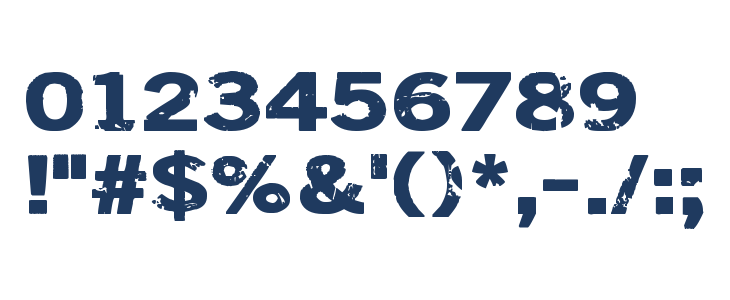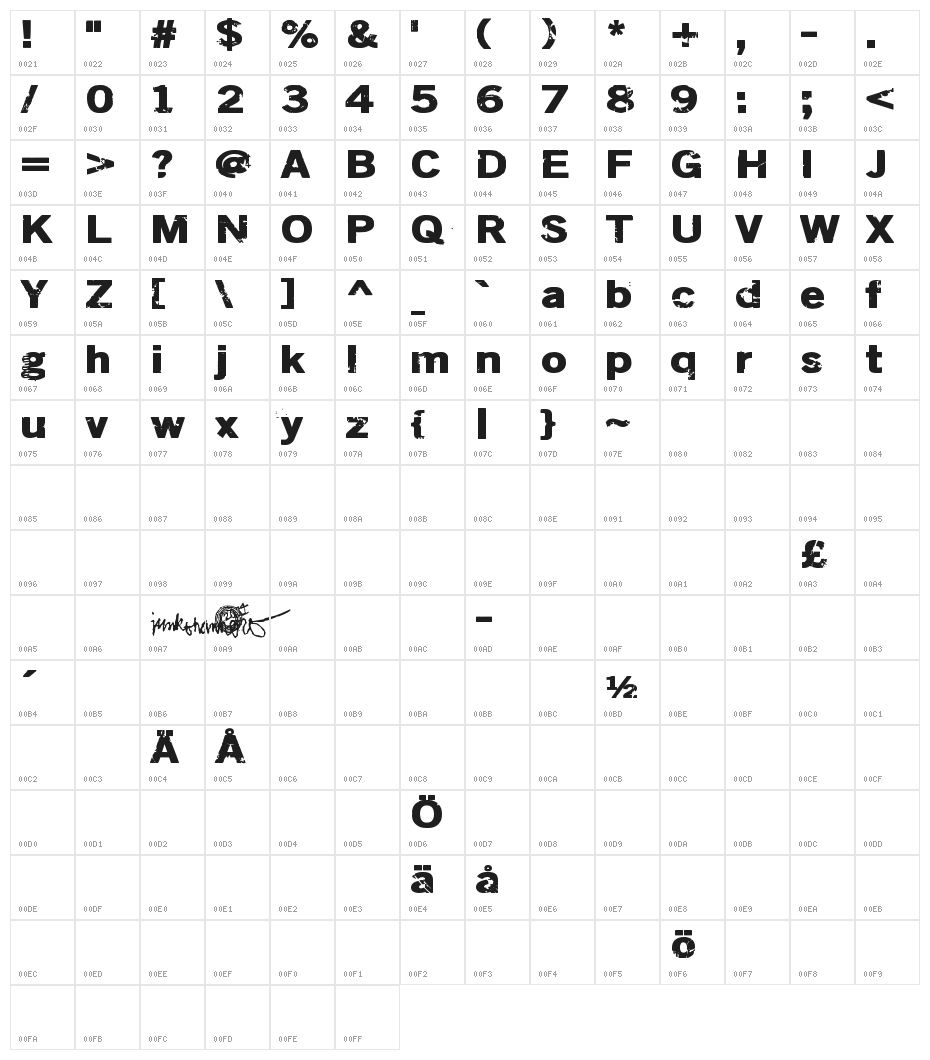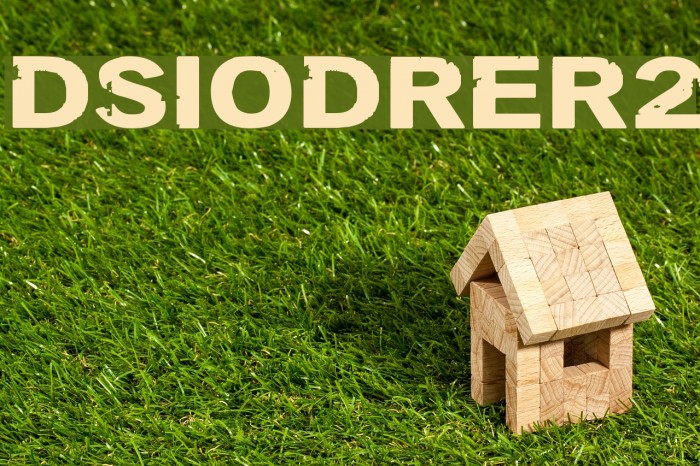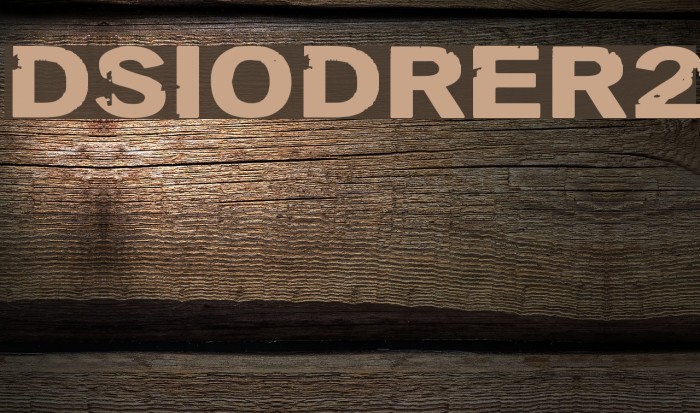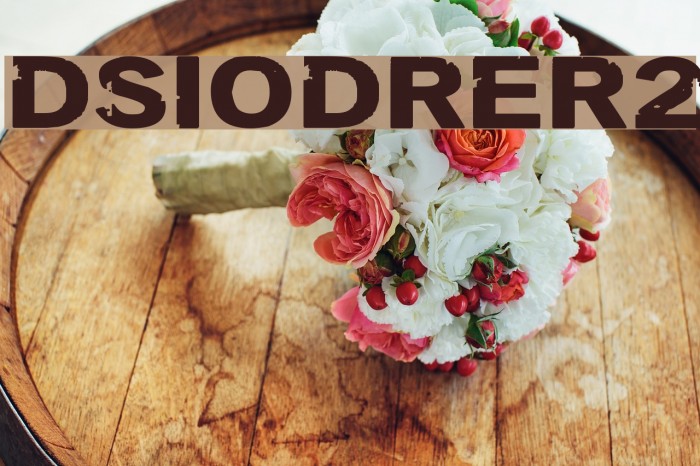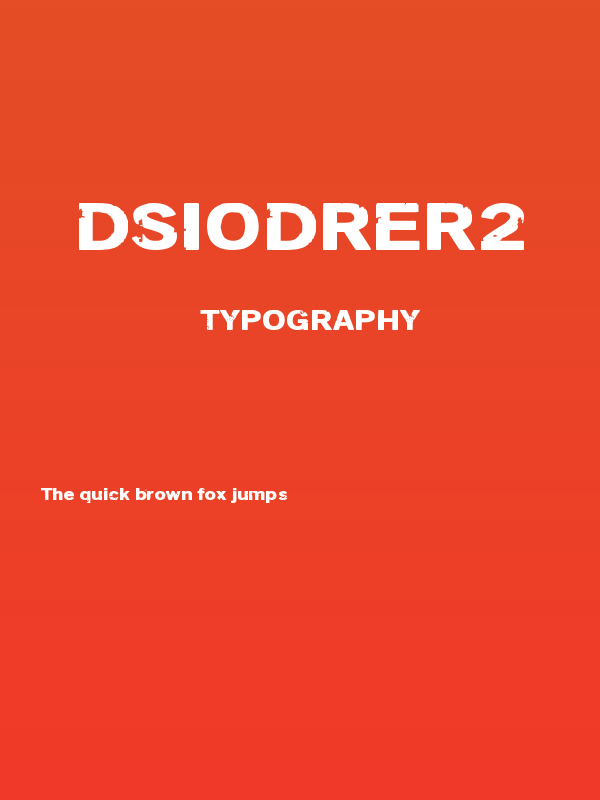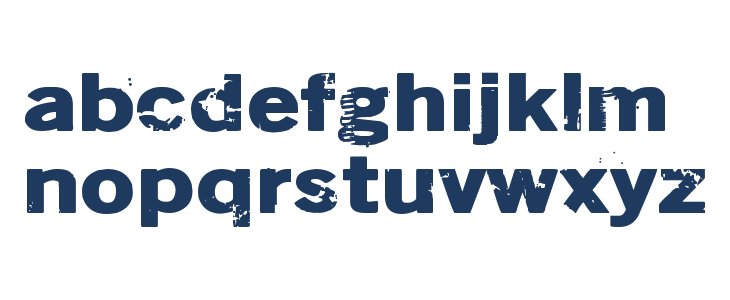
DSIODRER2 Font
DSIODRER2 Description
This font features a bold, distressed style with a grunge effect, giving it a rugged and worn appearance. The characters are thick and substantial, with irregular edges and a textured look that suggests a sense of age and weathering. This style is reminiscent of urban street art or vintage posters, where the imperfections add character and depth. The uppercase and lowercase letters maintain a consistent weight, while numbers and special characters follow the same distressed pattern, ensuring uniformity across the typeface. The overall design is impactful and eye-catching, making it suitable for projects that require a strong visual statement.
| Overall Style | Vintage, Grunge |
| Proposed Projects | Ideal for posters, album covers, branding for edgy or alternative products, and any design needing a vintage or urban feel. |